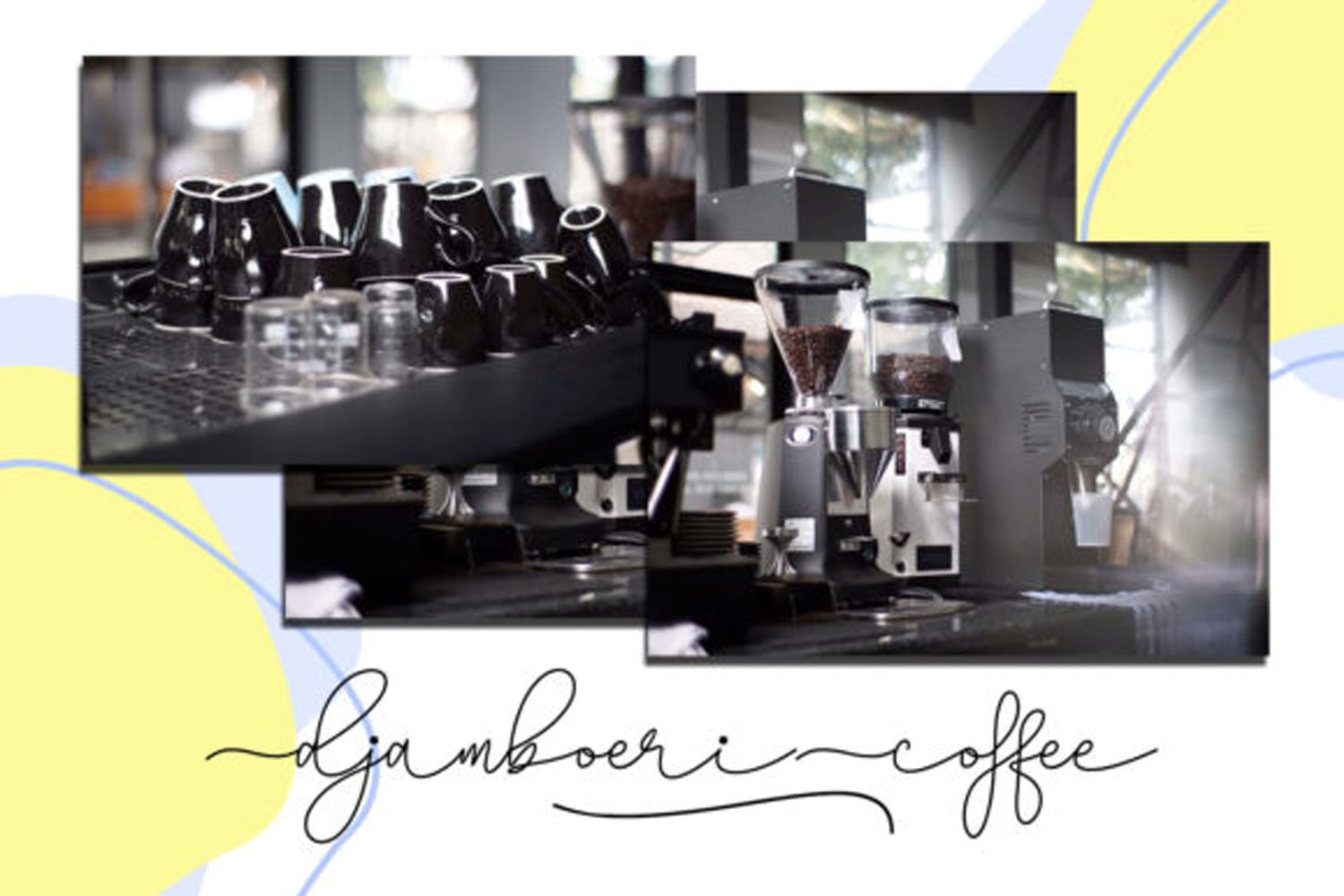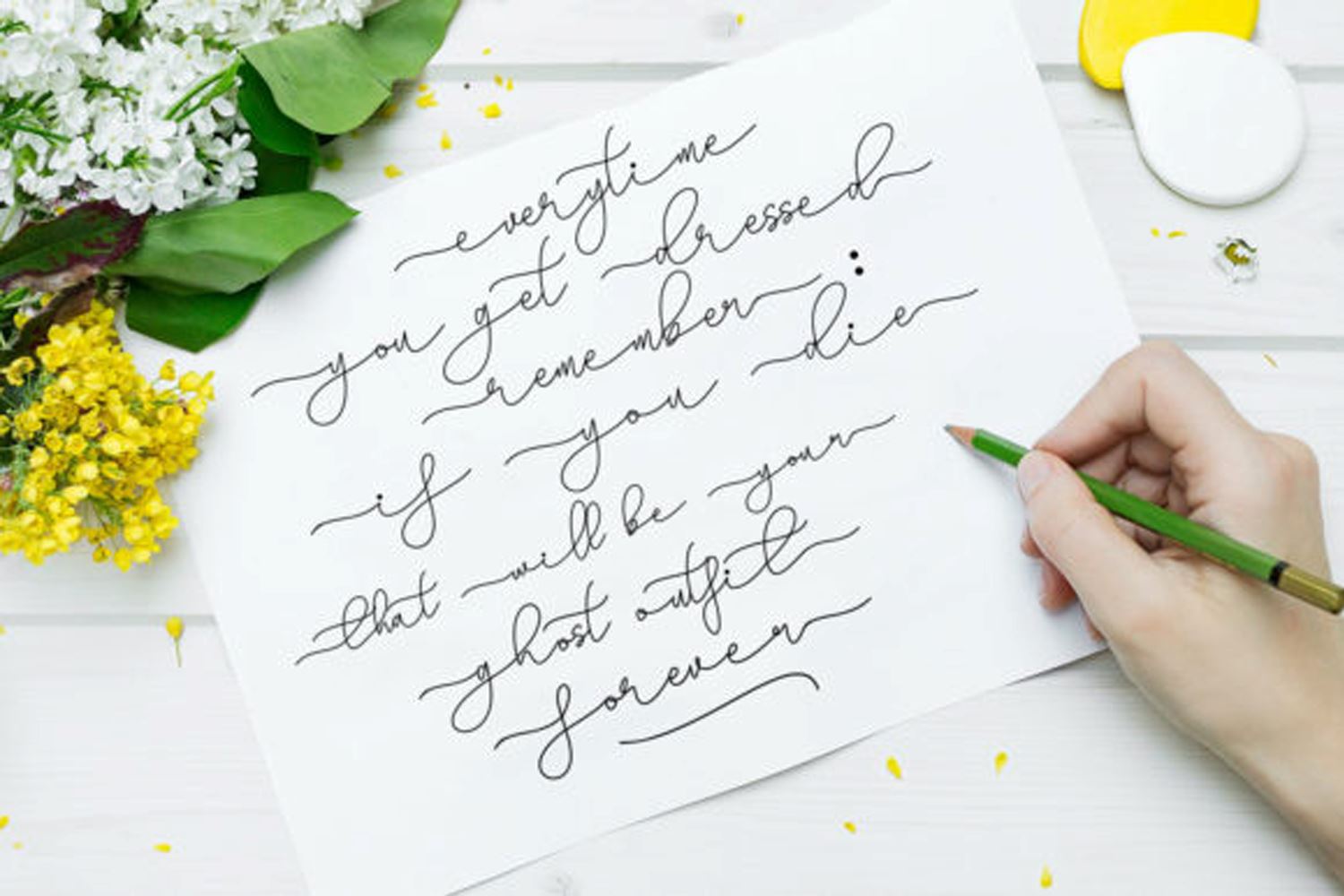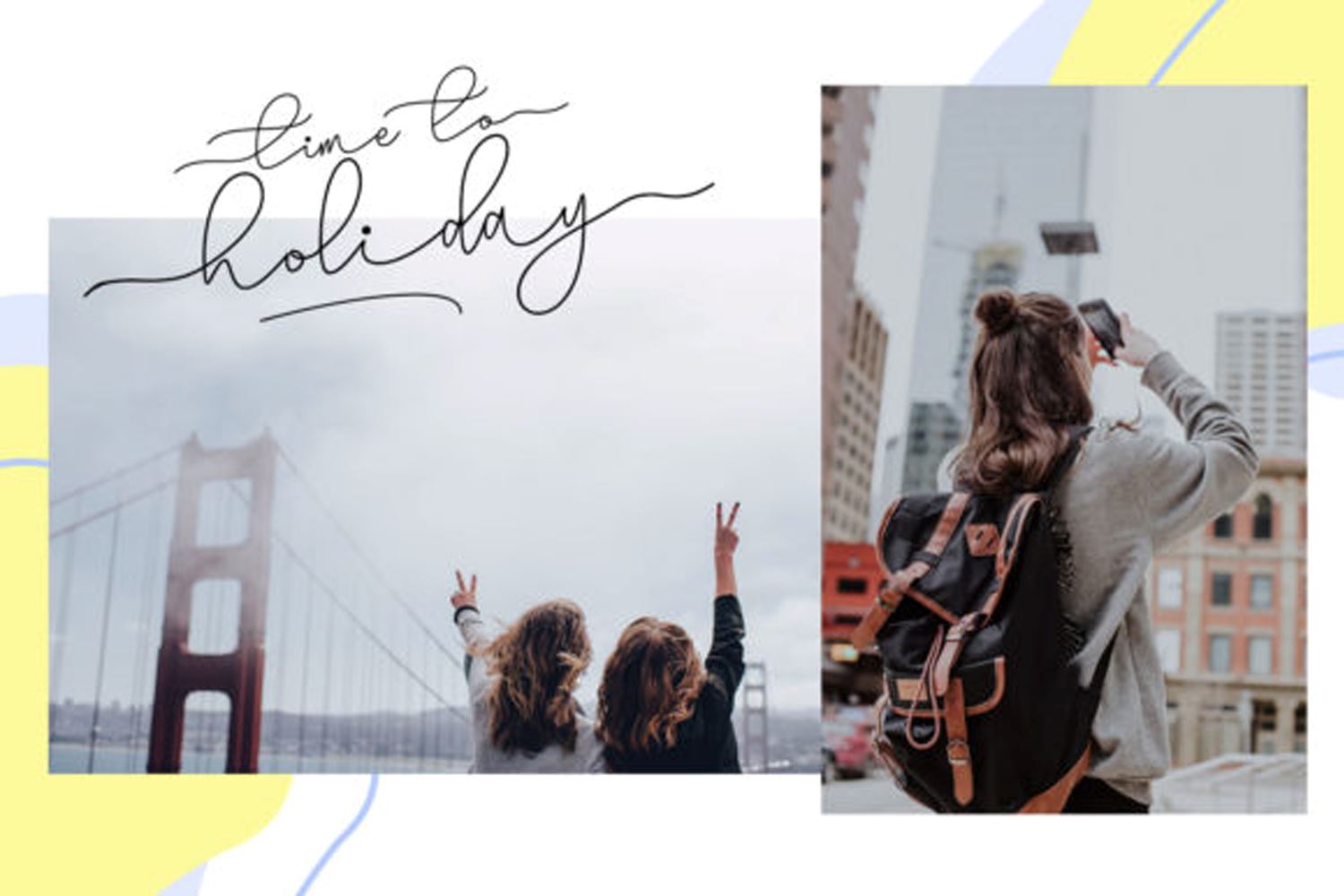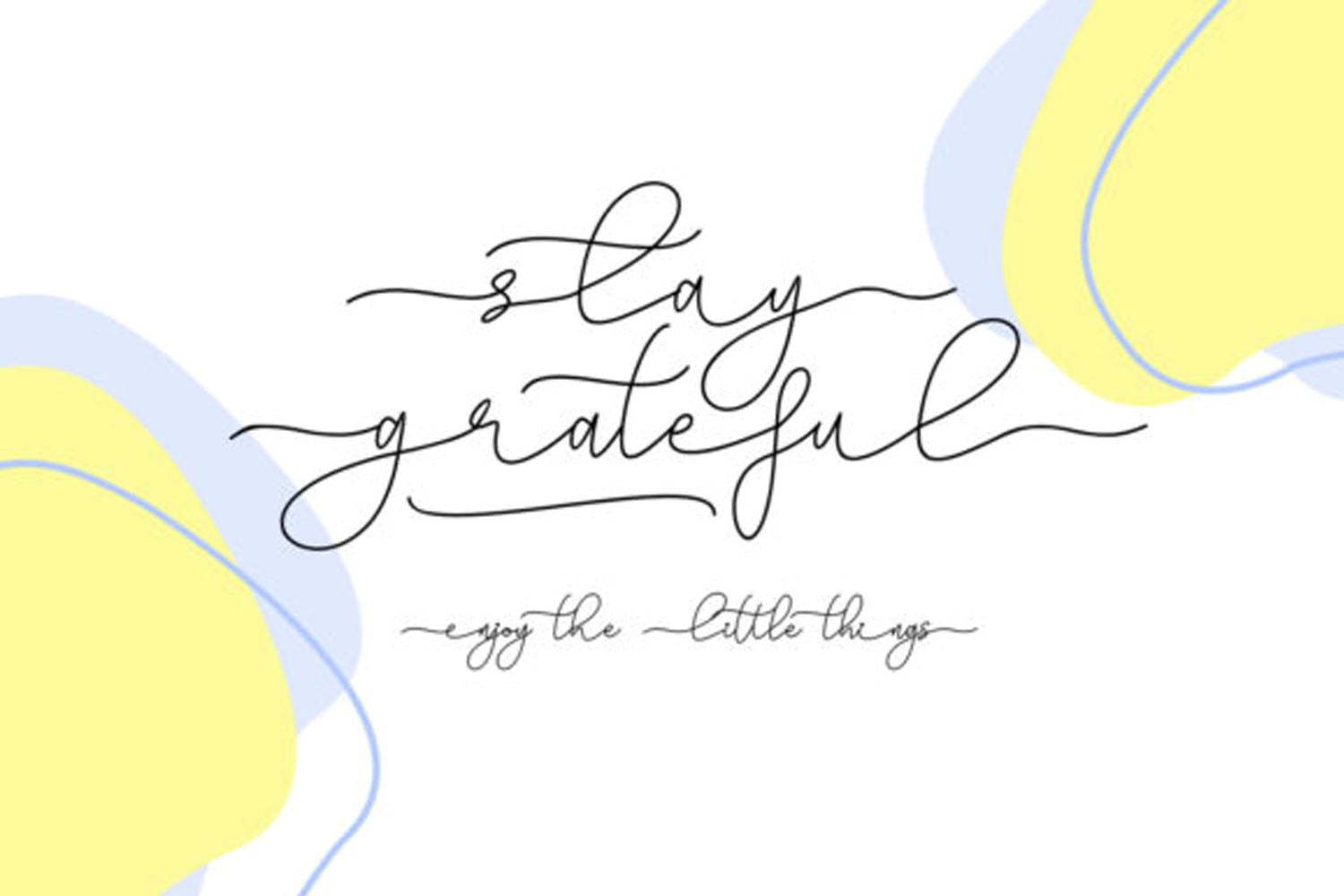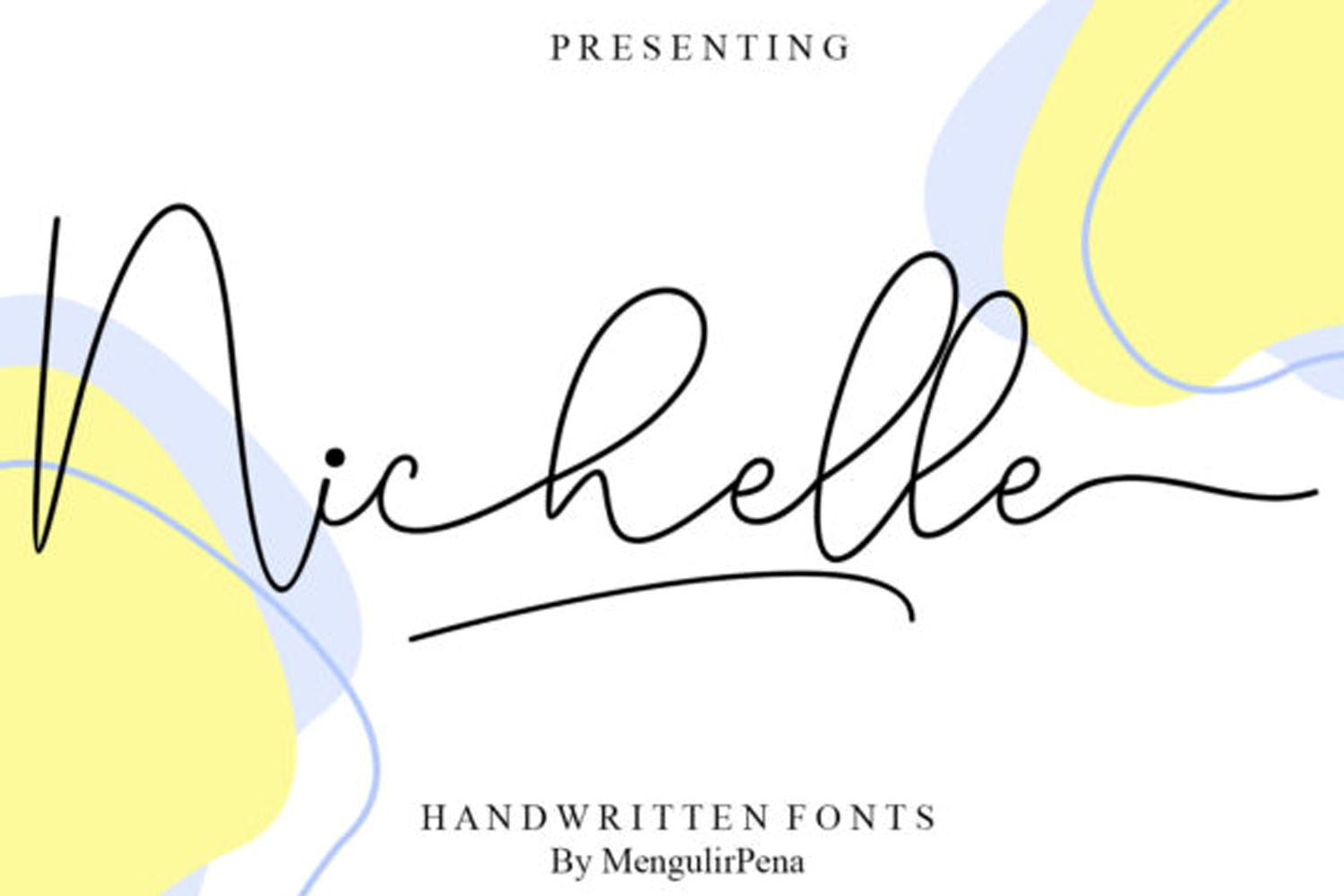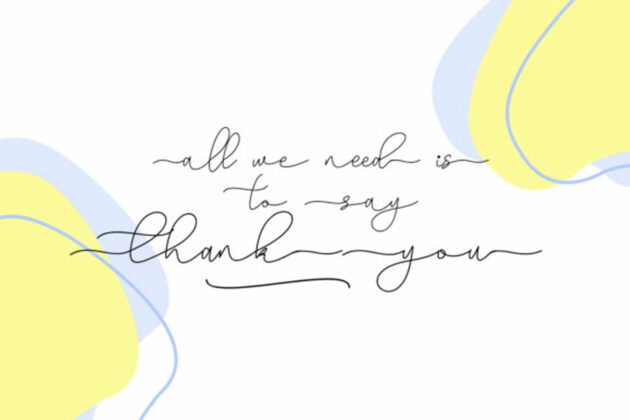
Nichelle font
Nichelle is a lovely and incredibly delicate handwritten font. It is PUA encoded, which means that you can access all of the glyphs and swashes with ease! It features a varying baseline, smooth lines, gorgeous glyphs and stunning alternates. Fall in love with its incredibly versatile style and use it to create spectacular designs!